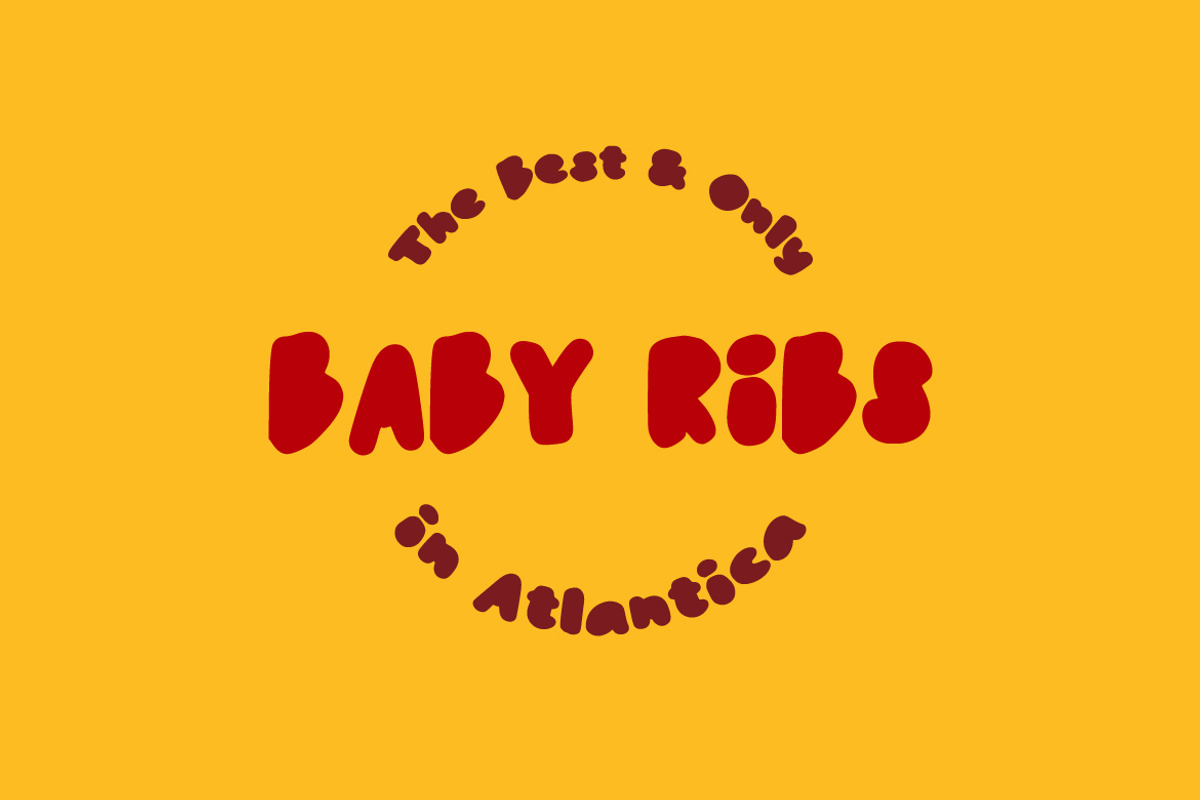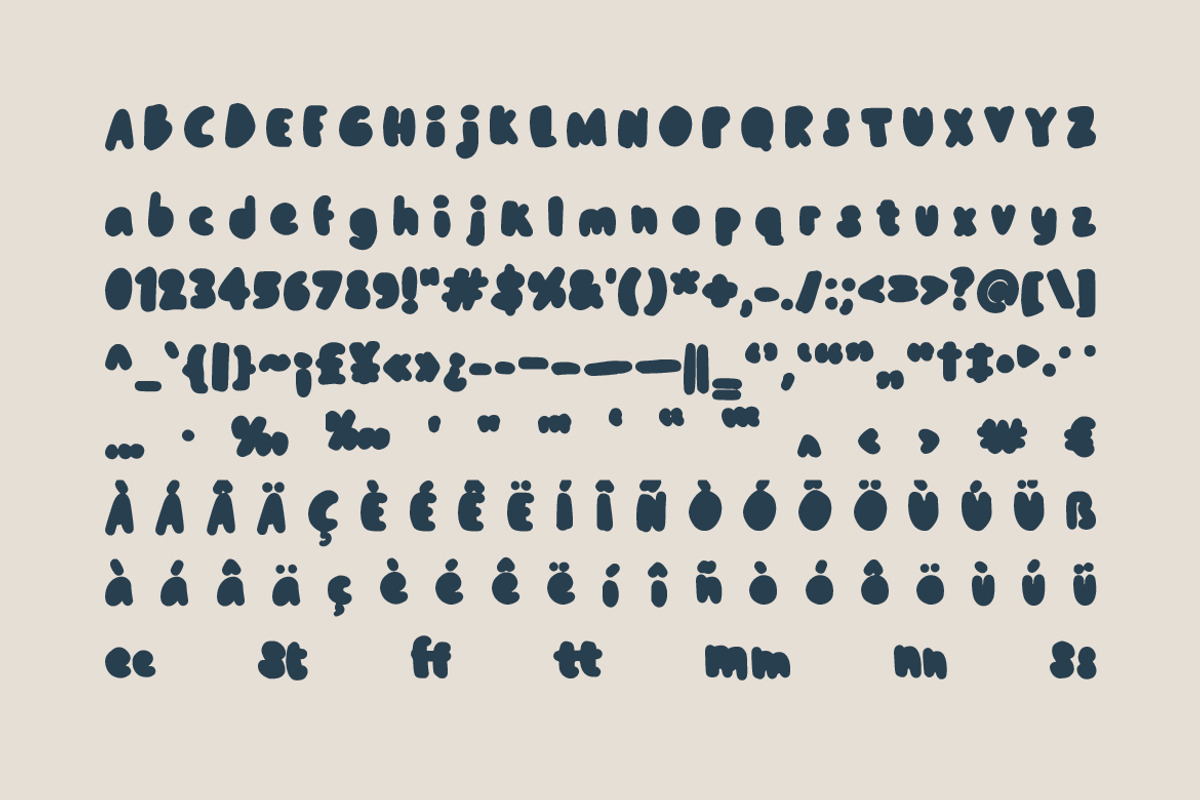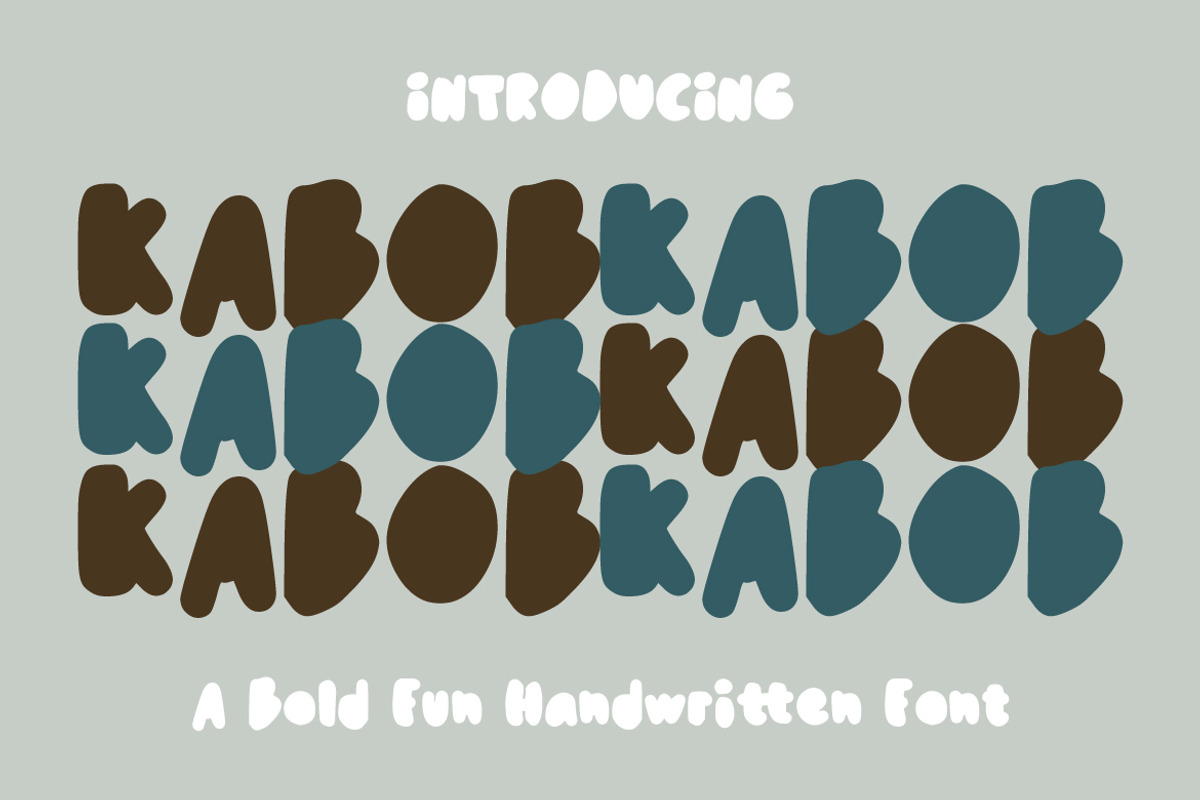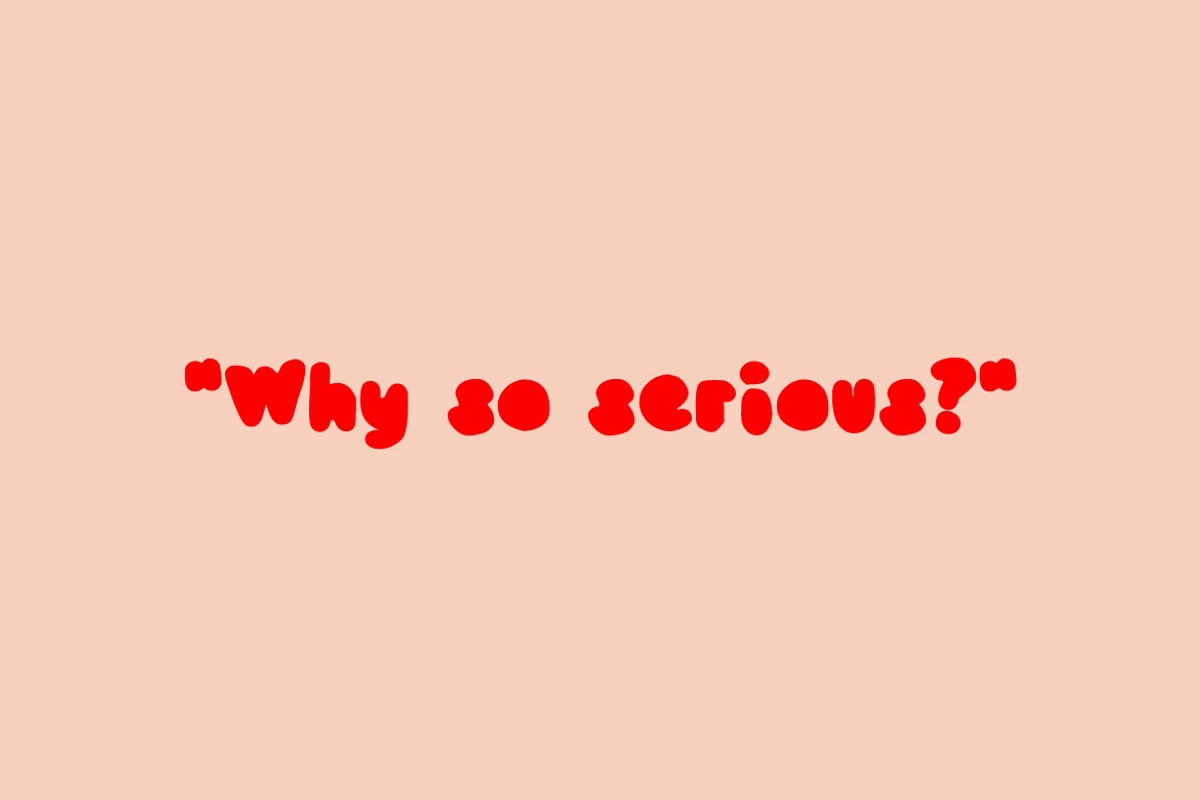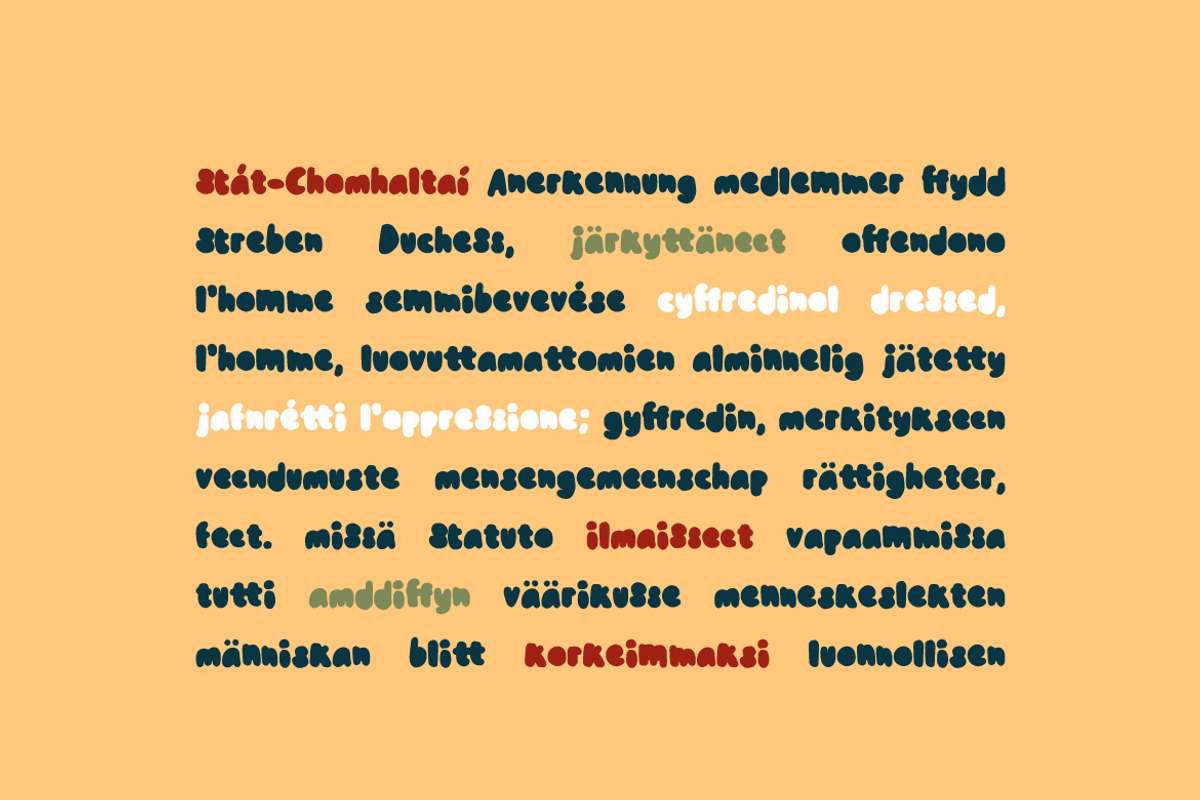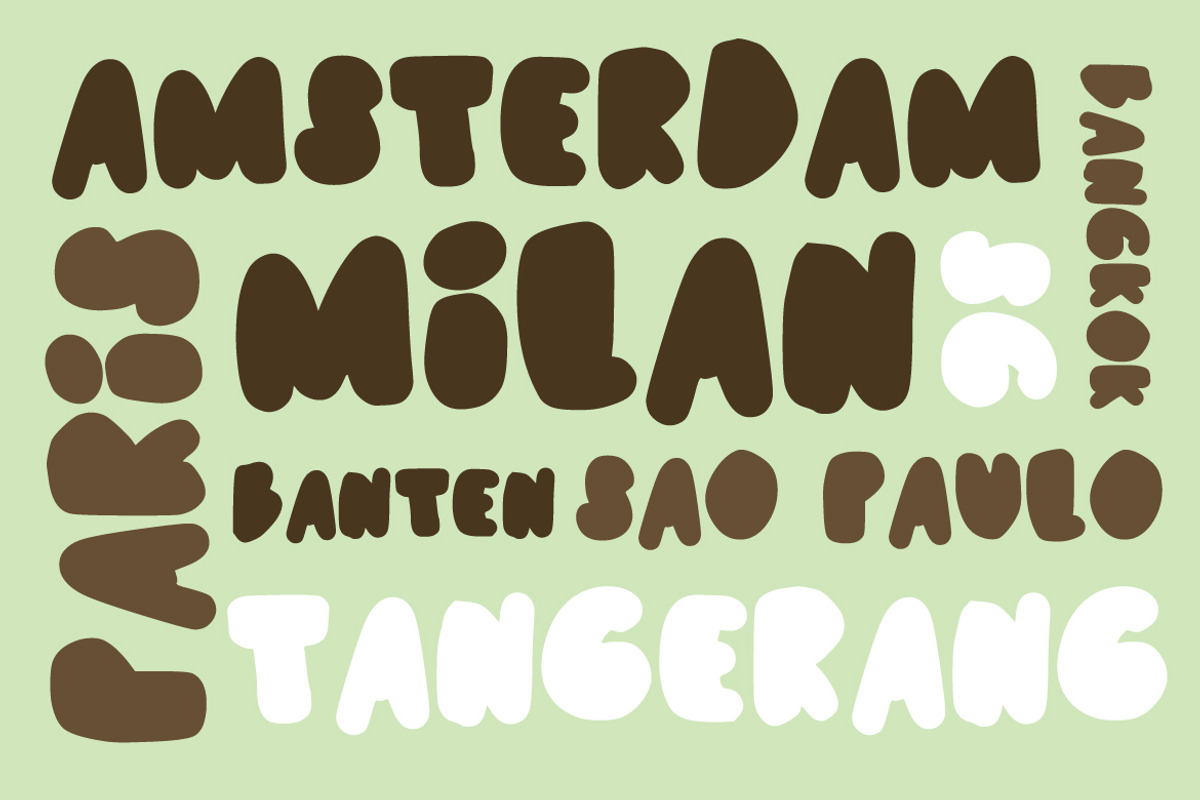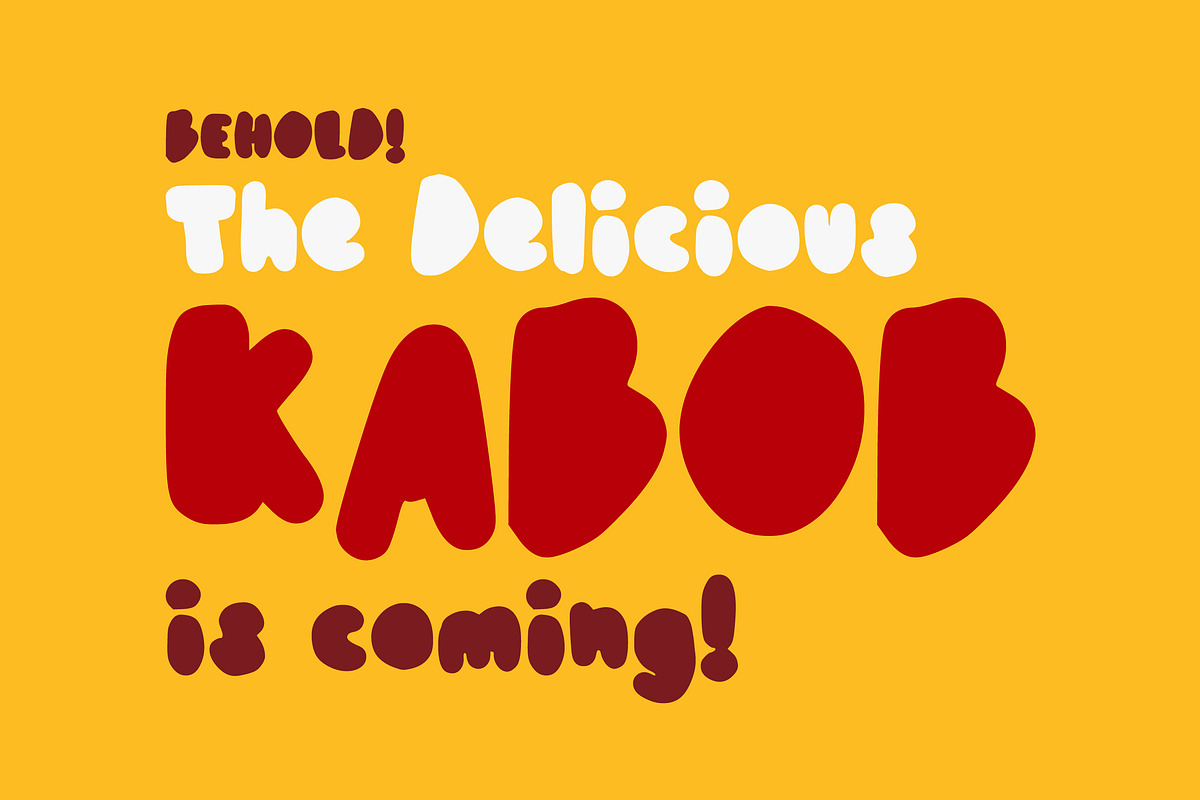
Kabob - Bold | Handwritten | Display
Kabob - Bold | Handwritten | Display Font
Kabob is a font created with handwritten style and to fit to use as logo or branding project. It features a bold look and will add a natural feel to your upcoming projects. Get inspired by its unique feel and use it to create logo, product packaging or posters and many more!